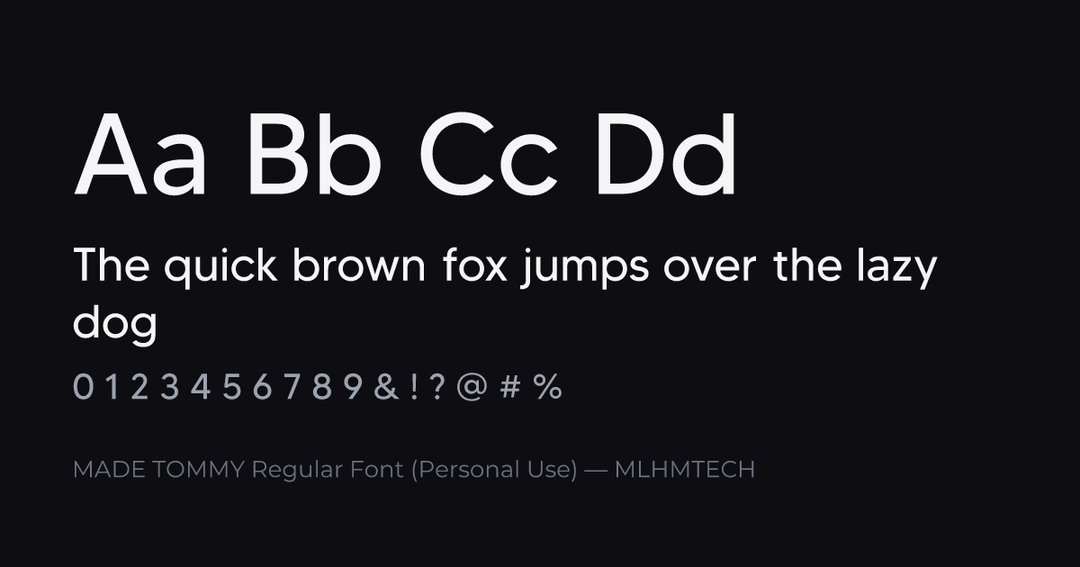
MADE TOMMY Regular is a clean, modern sans-serif font ideal for titles, logos, and branding. This OTF file is licensed for personal use only.
MADE TOMMY Regular is a versatile sans-serif typeface that brings a clean and contemporary look to your projects. Its balanced proportions and legible letterforms make it suitable for a wide range of applications, from video titles and thumbnails to logos and print materials.
Add a touch of modern elegance to your creative work with MADE TOMMY Regular. Whether you're designing a logo, crafting a social media graphic, or editing a video, this font will help you achieve a polished and professional result.